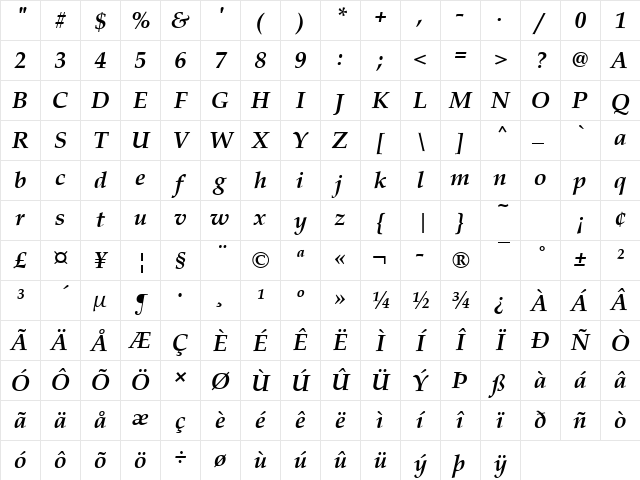
Becker Palladio Bold Italic
Design Context for Becker Palladio
Becker Palladio is a composed and adaptable typeface that performs quietly and consistently across a wide range of design contexts. The slanted form adds forward momentum and visual energy. Its bold stroke weight gives it real presence on the page.
Pro Tip: Use Becker Palladio for emphasis, pull quotes, and subheadings where its slanted energy can add rhythm to the layout.